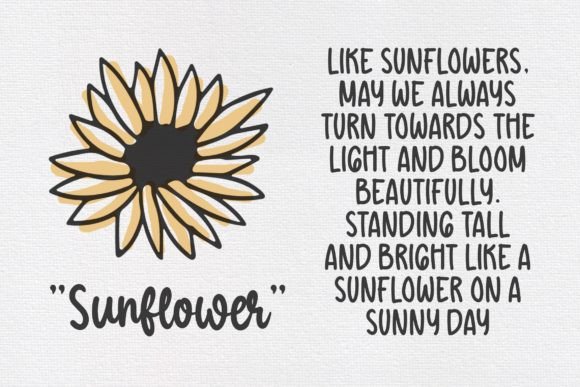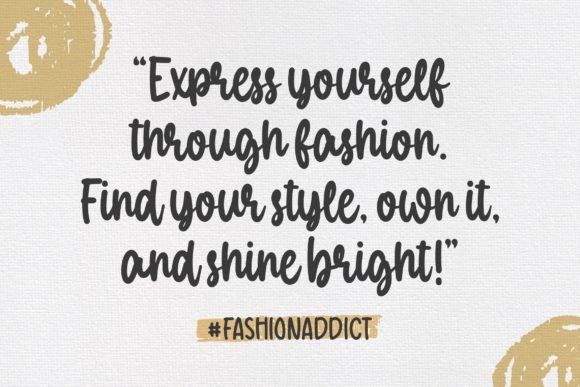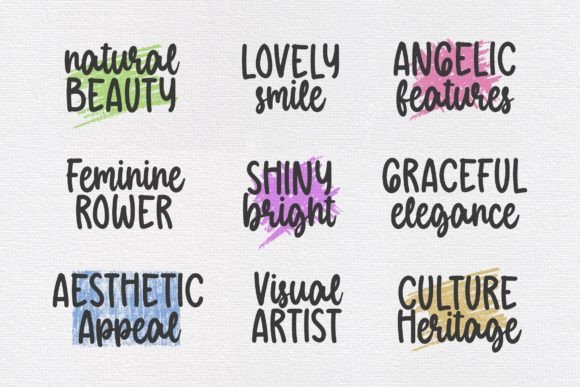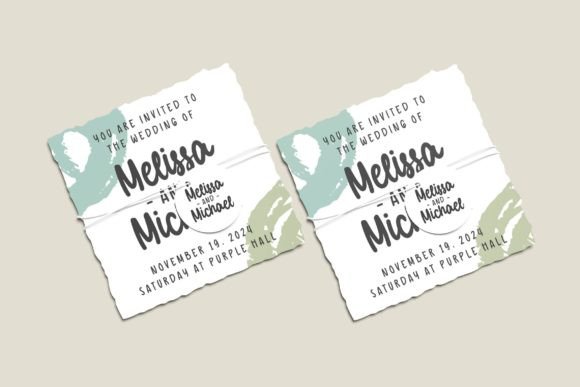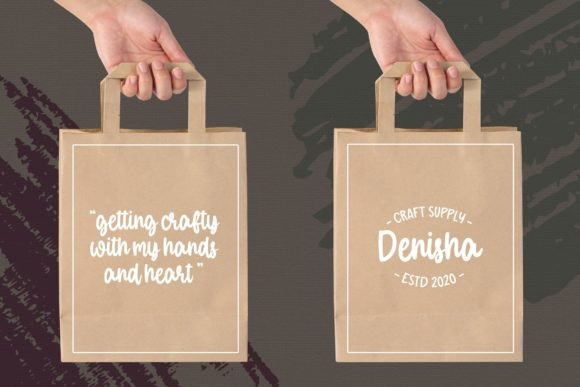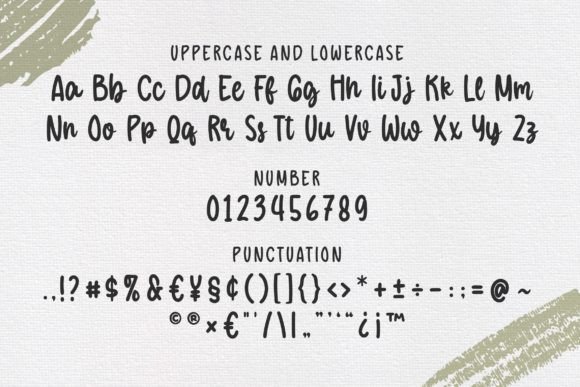
Get Ready to Unleash Your Inner Artist
Have you ever found yourself scribbling away in a notebook, lost in a world of creative expression? Maybe it’s during a morning coffee break, or while brainstorming ideas for a new project. Whatever the moment, it’s those fleeting sparks of inspiration that remind us of the joy of creating something truly unique. And for designers, artists, and makers, there’s nothing quite like capturing that essence in the perfect font.
Enter the Doodle Delight Font – a Rounded Marker Script Font that embodies the whimsy and charm of handcrafted design. This delightful font is crafted specifically for the artisanal spirit within, offering a playful and expressive way to bring your creative vision to life. With its hand-drawn flair and organic feel, the Doodle Delight Font is an invaluable addition to any designer’s toolkit, allowing them to add a touch of personality and warmth to their projects.
Doodle Delight Font Key Features
- Unique Characteristics: Whimsical, hand-drawn design with playful flourishes and intricate details
- Font Style: Casual, cursive, script
Doodle Delight Font Review
Overall, I think the Doodle Delight Font has some great qualities that make it a fun addition to your design projects. ✨ The whimsical, hand-drawn feel is perfect for creative and playful designs. ✨ The font’s unique characteristics, such as the rounded edges and uneven lines, add a touch of personality to any text. ✨ Additionally, the font is highly customizable, allowing you to adjust the size, color, and style to fit your needs.
However, I do have a few concerns that might impact its usability in certain situations. ⚠️ One of the main limitations is that the font can be quite dense and may not be the best choice for large blocks of text. ⚠️ Additionally, some of the characters may not be as detailed or clear as you might like, which could be an issue for designs where readability is a top priority. ⚠️ Lastly, the font’s customizability can sometimes feel overwhelming, making it difficult to achieve a consistent look and feel.
Key Takeaways:
- Unique, hand-drawn feel that adds personality to designs
- Highly customizable, with options for size, color, and style
- Not ideal for large blocks of text or designs where readability is crucial
- Some characters may not be as detailed or clear
Doodle Delight Font: A Practical Application Guide
Use the Doodle Delight Font to create eye-catching titles, headings, and graphics that add a playful touch to your presentations and documents.
The Doodle Delight Font is perfect for:
Children’s books and educational materials
Playful social media graphics and advertisements
Wedding invitations and event decor
Any design project that requires a whimsical and creative touch
Alternative Fonts to Doodle Delight Font
The Great Vibes Font is a handwritten, cursive font that adds a touch of elegance and sophistication to designs. It’s perfect for use in titles, headings, and quotes. Great Vibes Font is more elegant and refined compared to Doodle Delight Font, which is more playful and whimsical.
Pacifico Font is a beautiful, cursive font that evokes the feeling of a tropical paradise. It’s ideal for use in travel, food, and lifestyle designs. Pacifico Font is more polished and refined compared to Doodle Delight Font, which has a more hand-drawn, imperfect feel.
Alex Brush Font is a elegant, handwritten font that adds a touch of sophistication and whimsy to designs. It’s perfect for use in titles, headings, and quotes. Alex Brush Font is more delicate and refined compared to Doodle Delight Font, which is more bold and playful.
Dancing Script Font is a beautiful, cursive font that adds a touch of elegance and sophistication to designs. It’s perfect for use in titles, headings, and quotes. Dancing Script Font is more dramatic and flowing compared to Doodle Delight Font, which has a more subtle and understated feel.